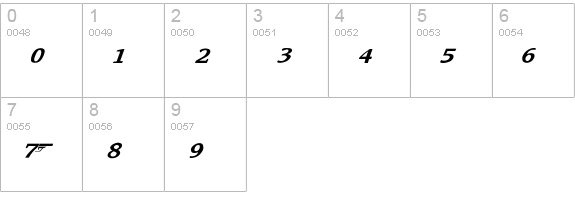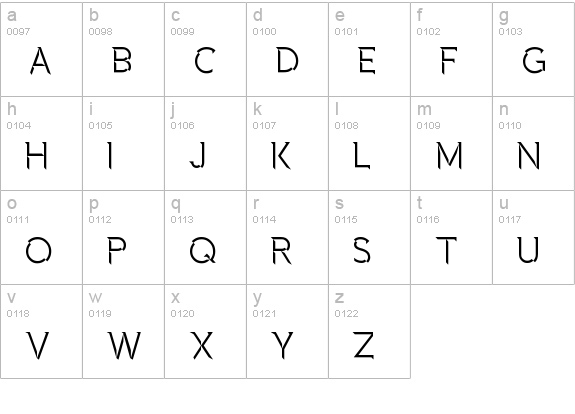
Spectre 007 Font Details
Introducing Spectre 007 font, a captivating and stylish typeface that exudes sophistication and mystery. Inspired by the iconic James Bond franchise, this font embodies the essence of thrilling espionage and the allure of the secret agent world. With its sleek and modern design, Spectre 007 font adds a touch of elegance to any project. Whether used for movie posters, book covers, branding, or digital designs, it instantly elevates the visual aesthetics and draws attention with its impeccable craftsmanship. But what makes Spectre 007 font even more remarkable is that it is not only visually stunning, but also completely free. That's right, this extraordinary font can be freely downloaded at FontsMarket.com, allowing designers and enthusiasts alike to effortlessly access its captivating appeal. Spectre 007 font boasts a wide range of characters, including uppercase and lowercase letters, numbers, symbols, and punctuations, providing endless possibilities for creative expression. Its versatility allows for seamless integration into various design styles and projects, guaranteeing that your work will always stand out from the crowd. Whether you are a professional designer looking to add a touch of sophistication to your latest project or a passionate hobbyist searching for a font that embodies the essence of espionage, Spectre 007 font is the perfect choice. Download it for free at FontsMarket.com and unlock a world of stylish possibilities.